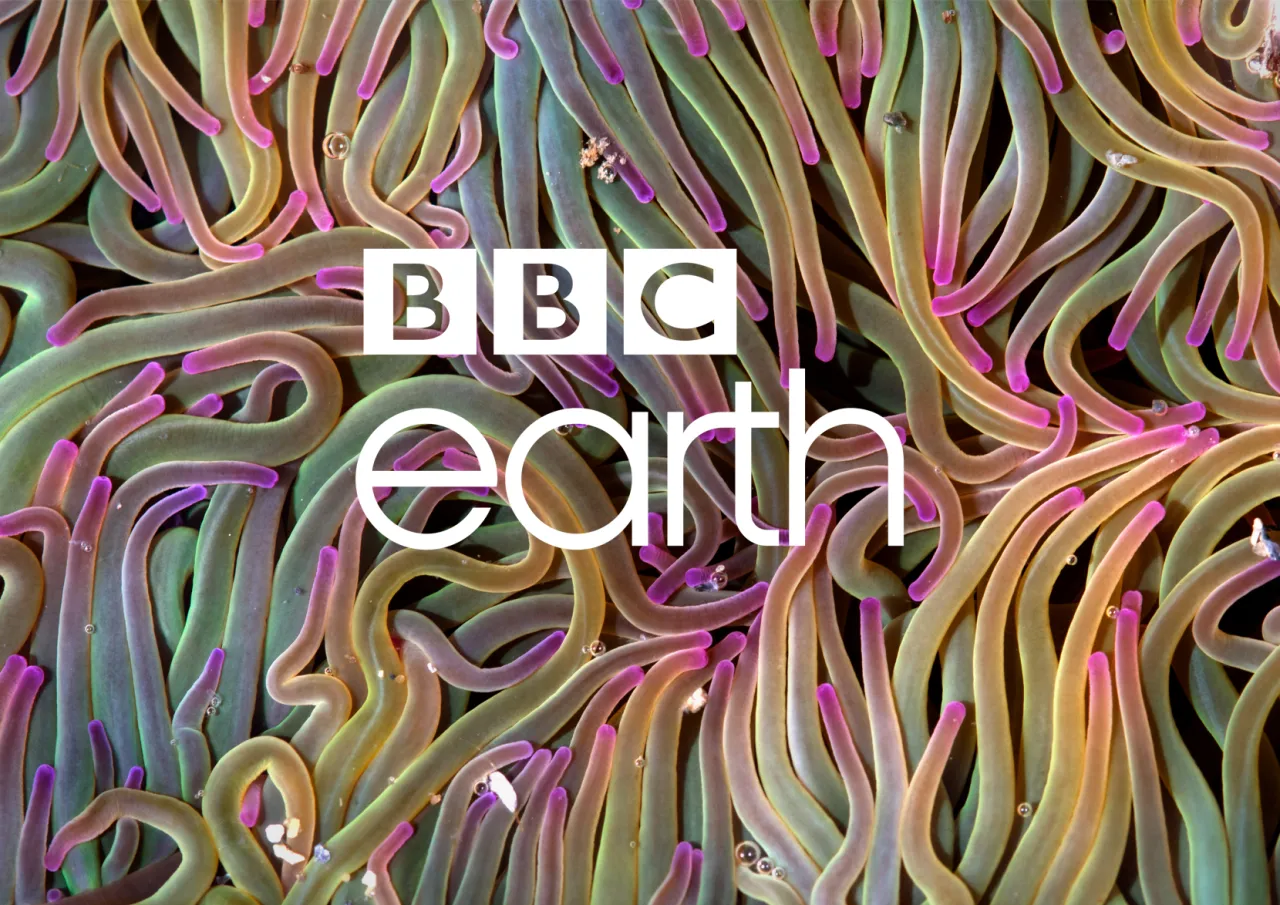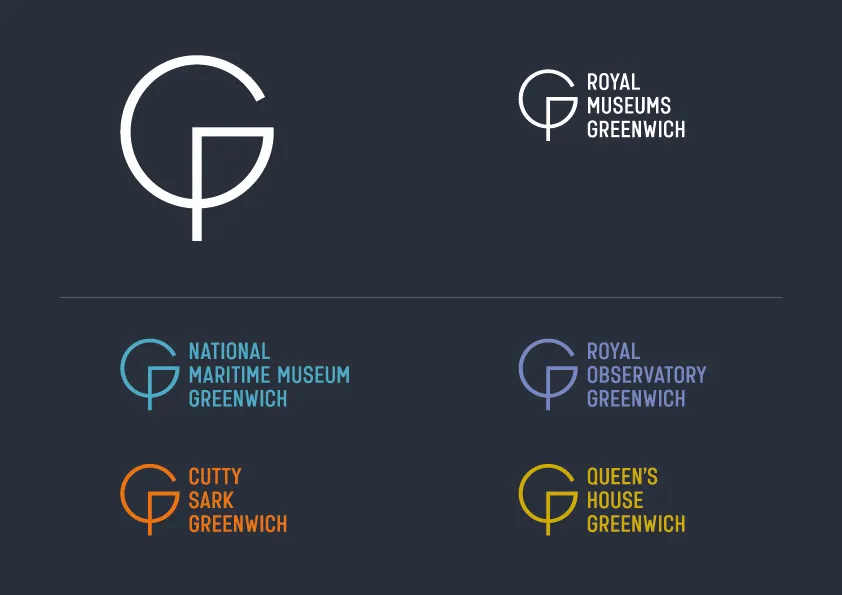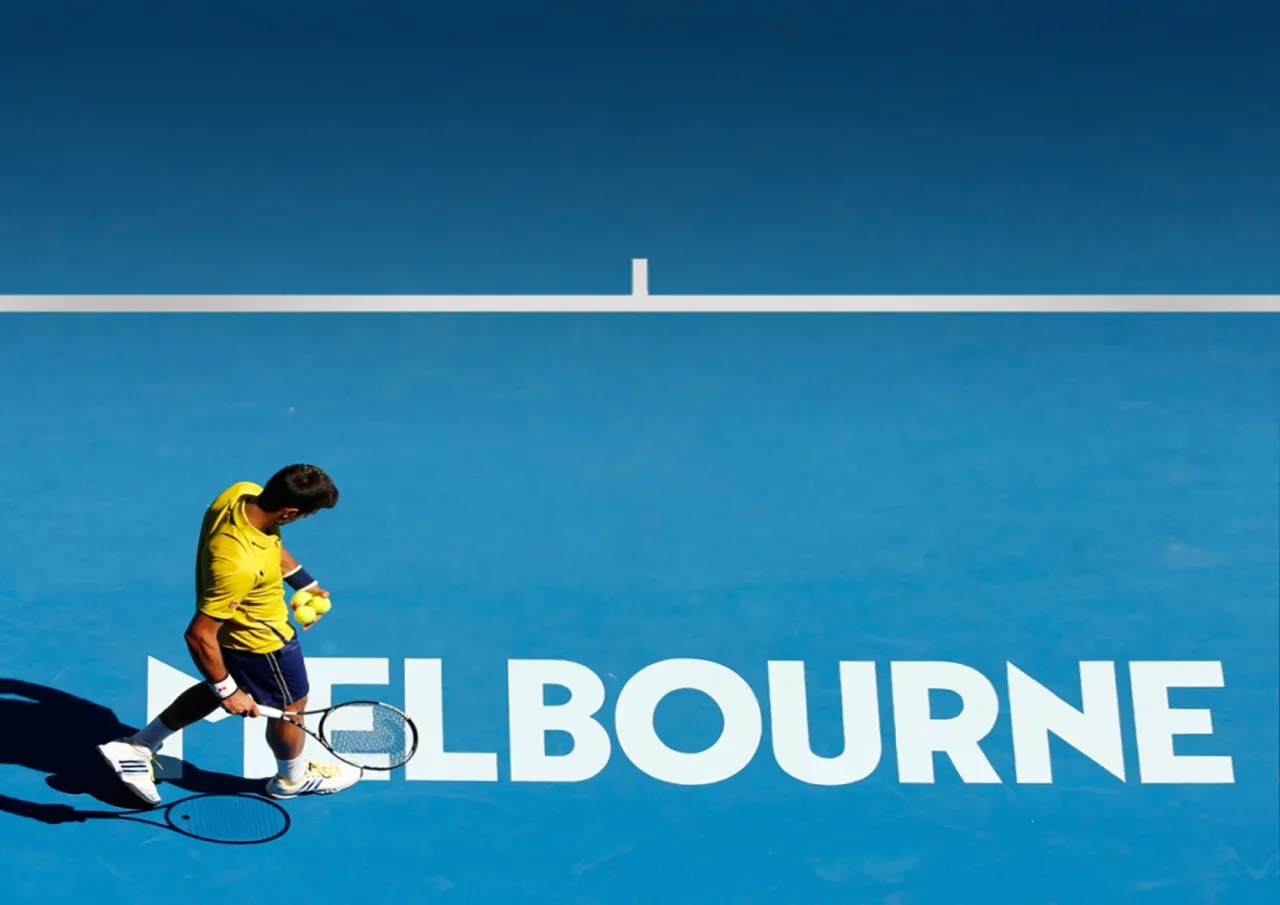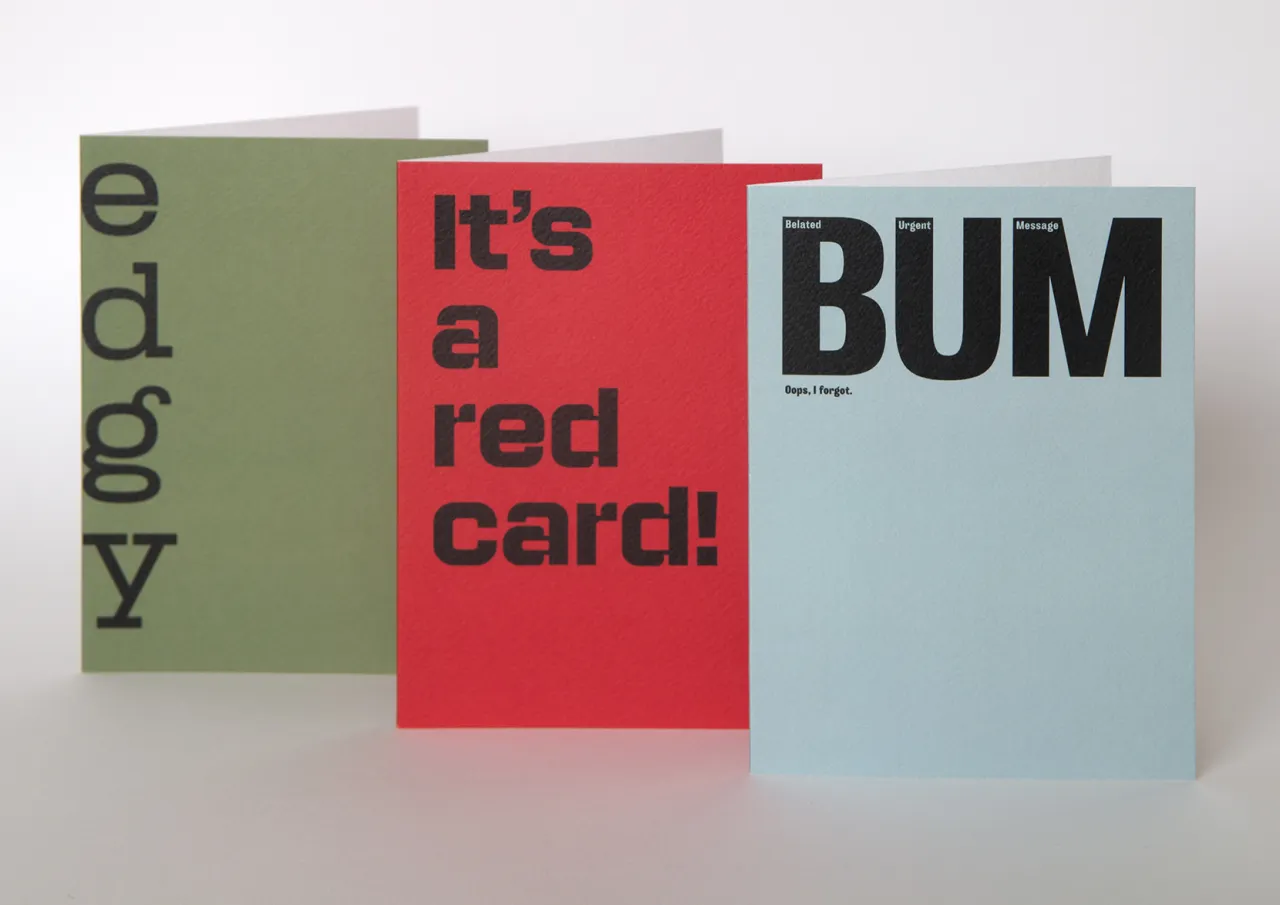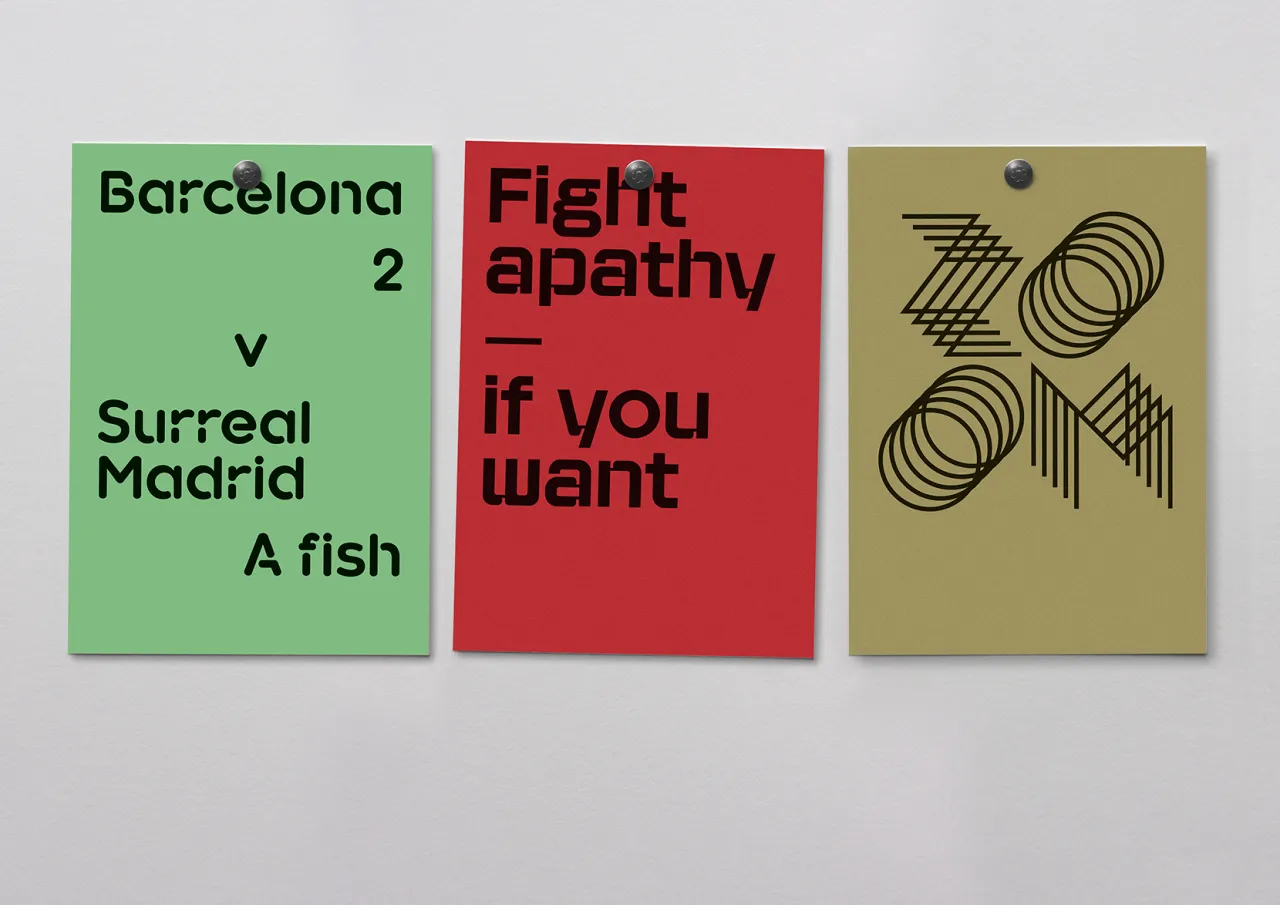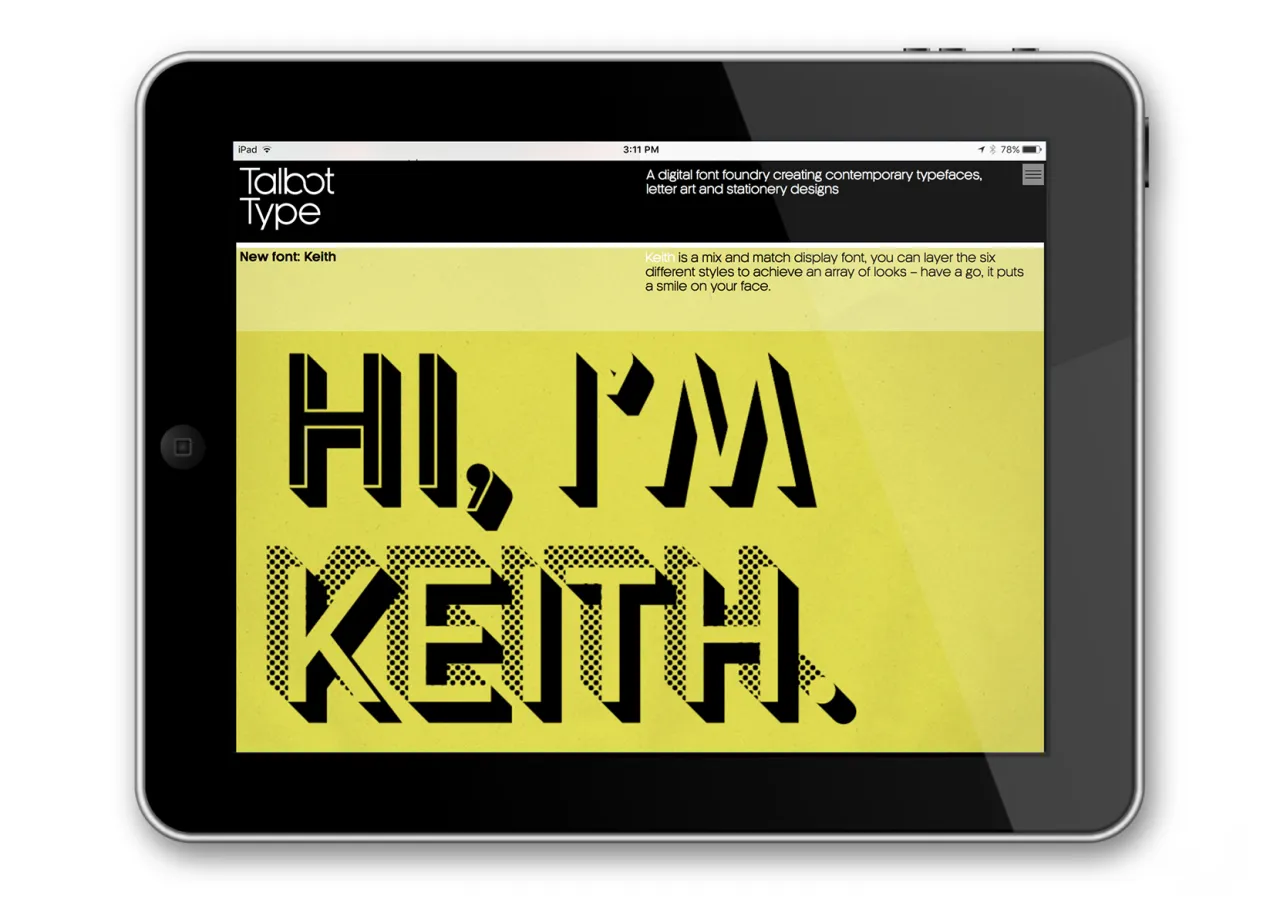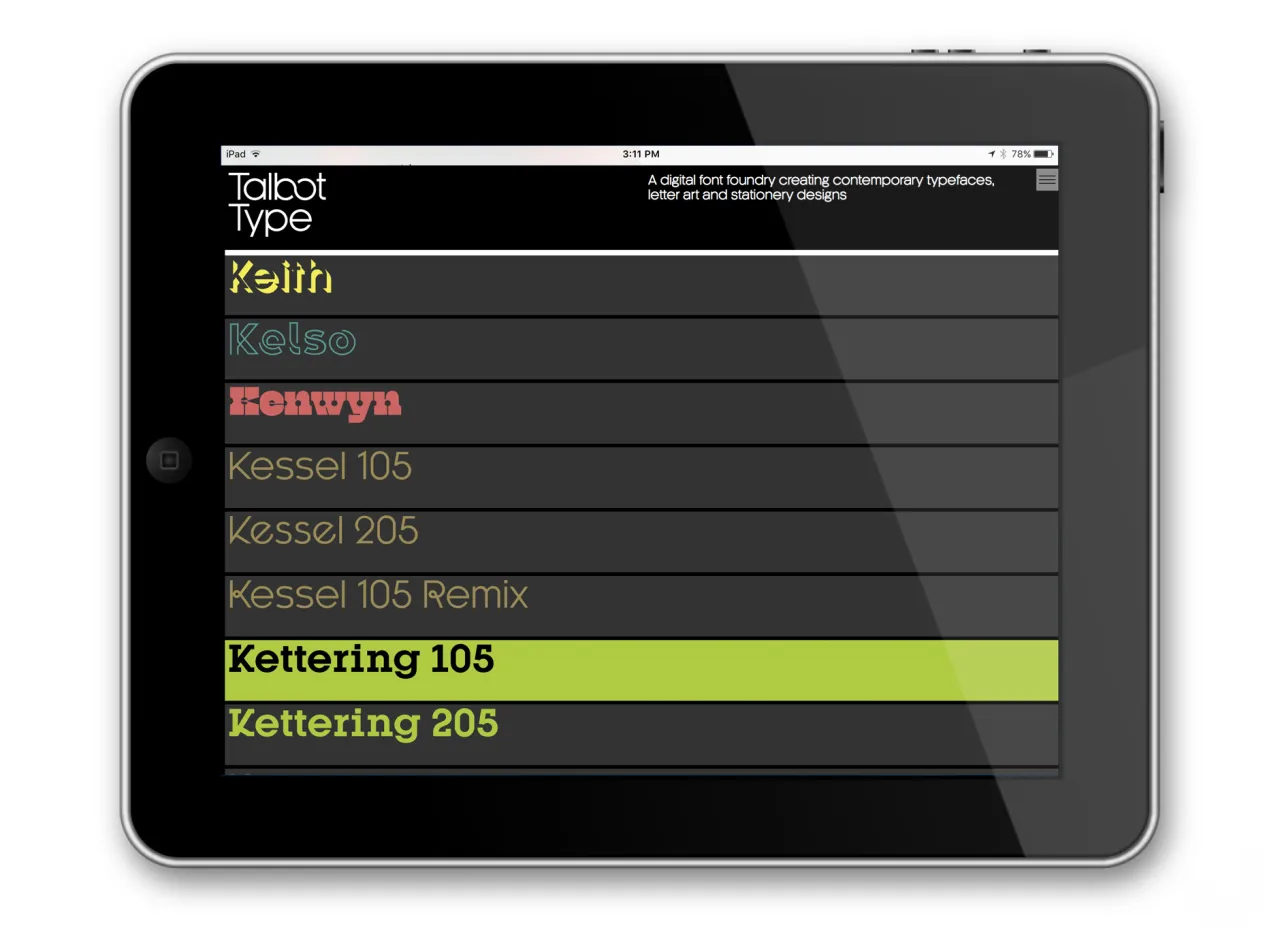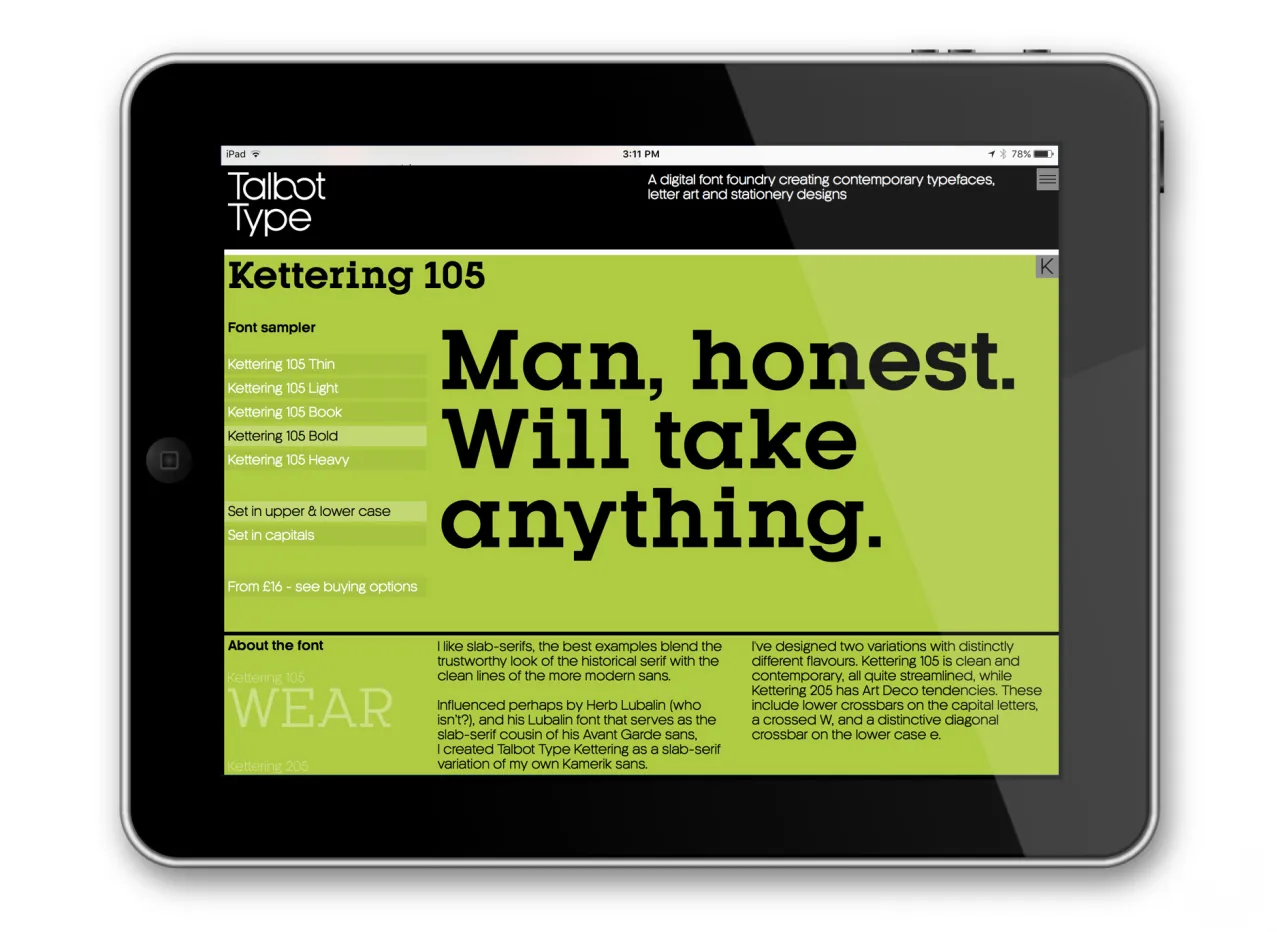
Talbot Type: Adrian Talbot's online foundry of typefaces and type inspired designs
Adrian Talbot has dedicated much of his spare time of late to designing typefaces and selling them through his own foundry, Talbot Type. A longstanding creative partner at London design agency Intro, he's used his daily commute from Brighton to the capital to create his range of fonts and type-inspired designs.
Notable examples include Talbot Type Kamerik for the BBC Earth channel on-air identity; Talbot Type Kessel for a visual identity for the Australian State of Victoria and Talbot Type Karben for the Royal Museums Greenwich visual identity.
His fonts are influenced by the classic movements of the twentieth century – Modernism, Constructivism, the Bauhaus and Art Deco – yet he aims to create timeless designs, valid now and in the future. With the odd exception, these aren’t "showy faces" but practical, hard-working text and display fonts.
"Typefaces don’t come to life until they’re put to some use and to that end I enjoy playing with them once I’ve created them, which is where the letter art and stationery come in," says Adrian. "You never know, if people see something that amuses them in some way then they might be persuaded to purchase a font; I’ve kept the prices pretty low as an extra incentive."